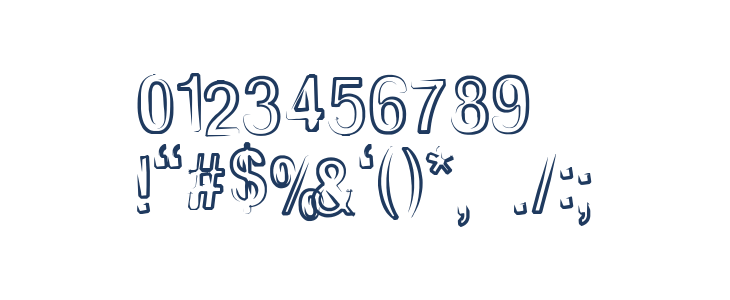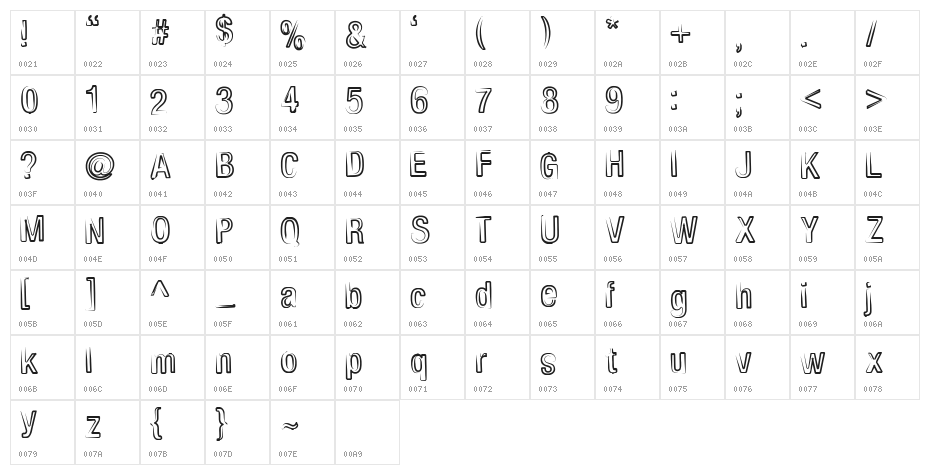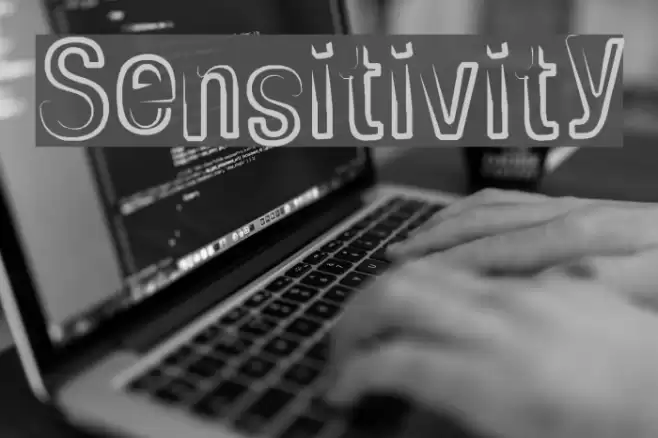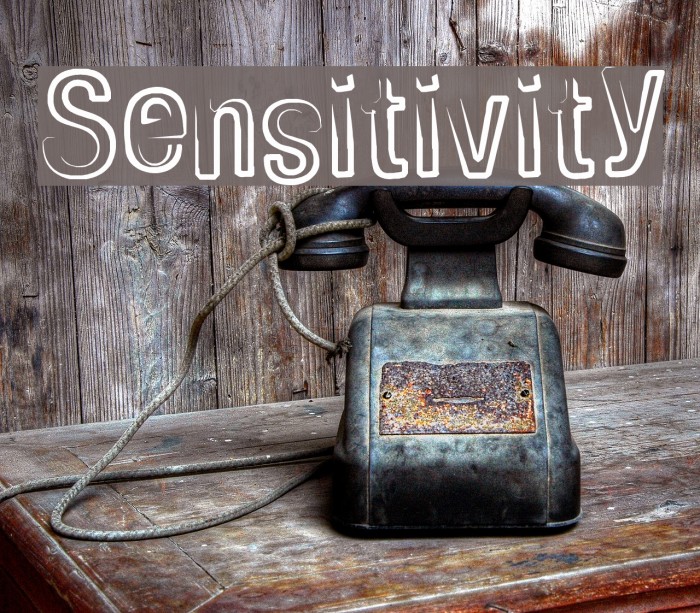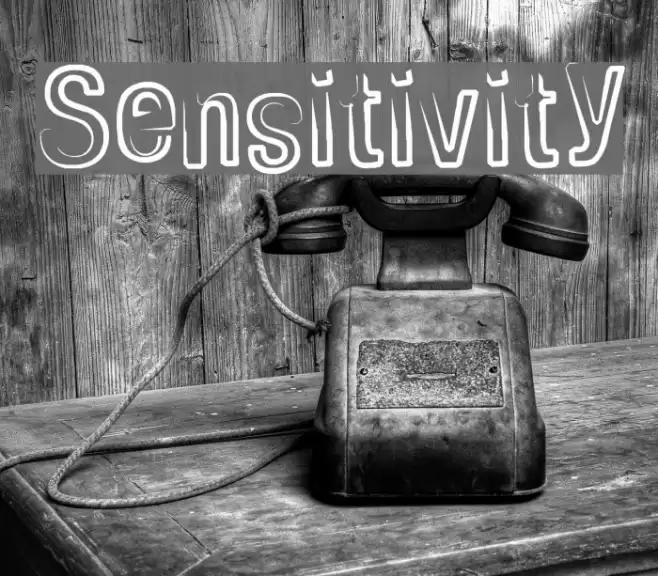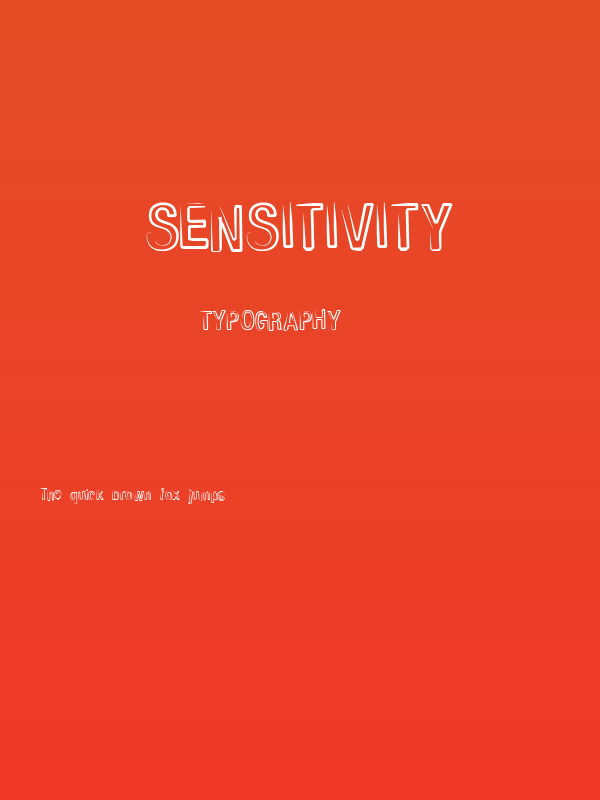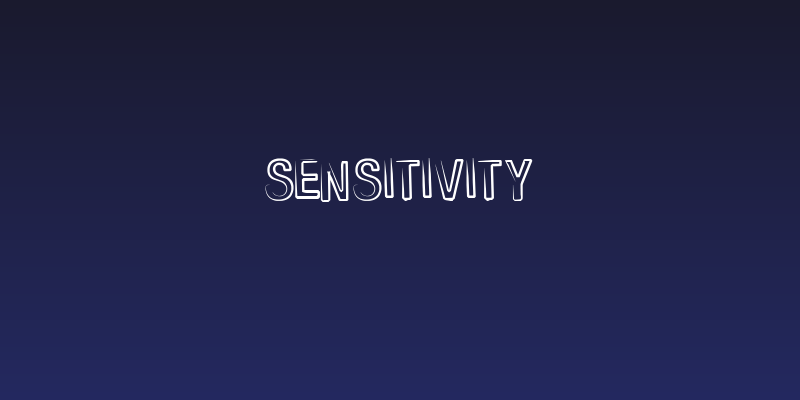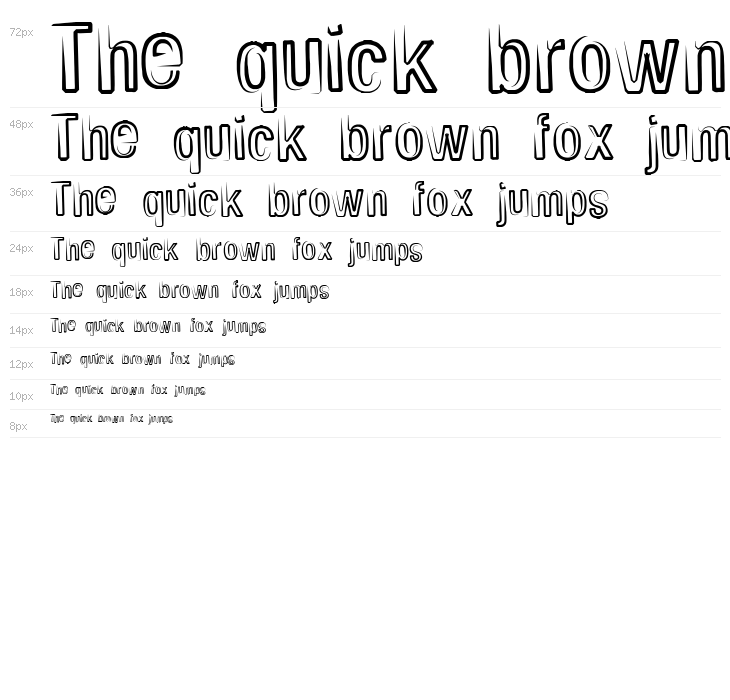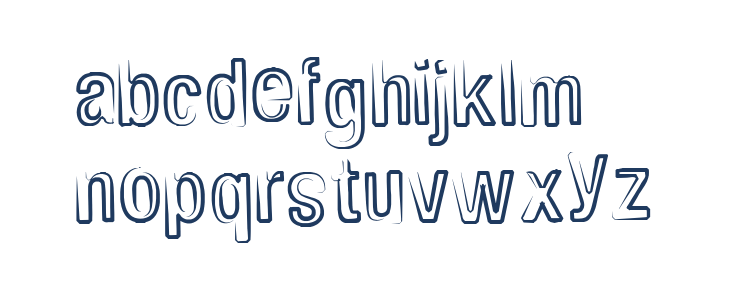
Sensitivity Font
Sensitivity Description
This font features a unique blend of modern and decorative styles, characterized by its bold, outlined letters with a shadow effect that creates a sense of depth and dimension. The uppercase and lowercase letters maintain a consistent width, giving the font a balanced appearance. The numerals and special characters are designed with the same attention to detail, ensuring uniformity across all glyphs. The font's playful yet structured design makes it suitable for a variety of creative applications. Its distinct outline and shadow provide a striking visual impact, making it ideal for projects that require a bold statement.